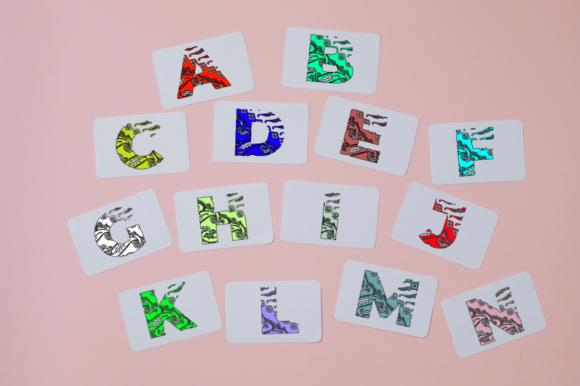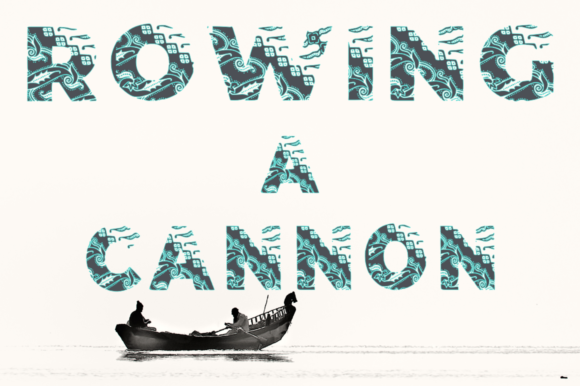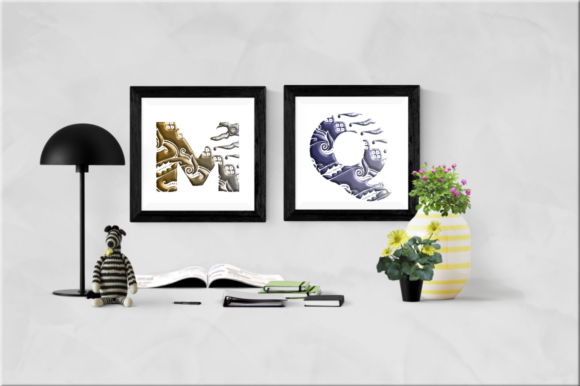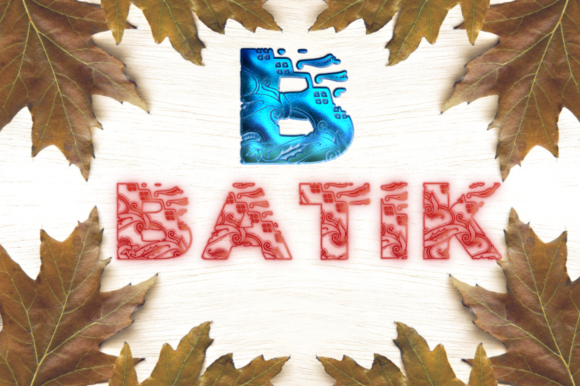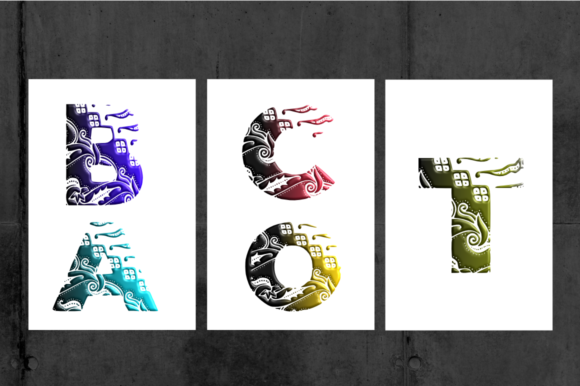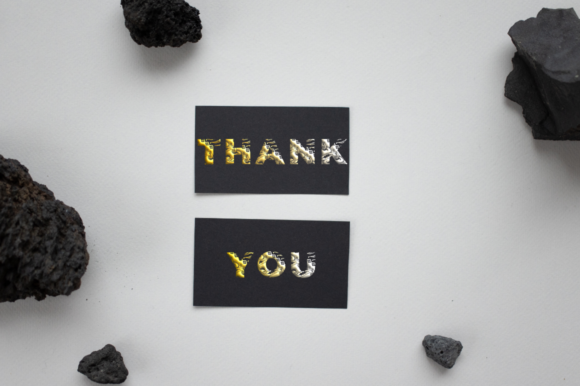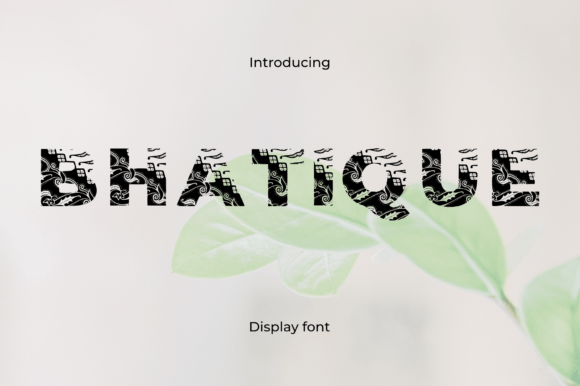
Bhatique Font: Elevate Your Designs with a Cool, Bold, and Thick Lettered Display Font
In the world of typography, a font can make or break a design. A well-crafted font can elevate your creation from ordinary to extraordinary. Bhatique Font is one such font that can take your designs to the next level. This cool, bold, and thick lettered display font is neatly crafted and highly detailed, making it a wonderful asset to your font library.
What Makes Bhatique Font Stand Out?
Bhatique Font is a display font that boasts a unique and striking appearance. Its bold and thick lettering makes it perfect for headlines, titles, and any other design element that requires attention-grabbing typography. The font’s neat and detailed craftsmanship ensures that it looks great in both digital and print formats.
One of the standout features of Bhatique Font is its versatility. Whether you’re designing a logo, brochure, or website, this font can be used to create stunning visual content. Its bold and thick lettering ensures that your message gets noticed, while its neat and detailed craftsmanship adds a touch of sophistication to your design.
Why Bhatique Font is a Great Addition to Your Font Library
Bhatique Font is a great addition to your font library for several reasons:
- Attention-grabbing typography: Bhatique Font’s bold and thick lettering ensures that your message gets noticed.
- Versatility: This font can be used for a wide range of design projects, from logos and brochures to websites and social media graphics.
- Neat and detailed craftsmanship: Bhatique Font’s neat and detailed craftsmanship ensures that it looks great in both digital and print formats.
- Easy to read: Despite its bold and thick lettering, Bhatique Font is easy to read, making it perfect for designs that require a clear and concise message.
How to Use Bhatique Font in Your Designs
Using Bhatique Font in your designs is easy. Here are a few tips to get you started:
- Use it for headlines and titles: Bhatique Font’s bold and thick lettering makes it perfect for headlines and titles.
- Pair it with other fonts: Bhatique Font can be paired with other fonts to create a unique and visually appealing design.
- Experiment with different colors and textures: Bhatique Font looks great in a variety of colors and textures, so don’t be afraid to experiment and find the perfect combination for your design.
If you’re a designer or crafter looking to take your designs to the next level, here are a few tips to keep in mind:
- Keep it simple: Bhatique Font is a bold and attention-grabbing font, so keep your design simple and focused.
- Experiment with different layouts: Bhatique Font can be used in a variety of layouts, so don’t be afraid to experiment and find the perfect combination for your design.
- Pay attention to typography: Bhatique Font is a display font, so make sure to use it in a way that takes advantage of its bold and thick lettering.